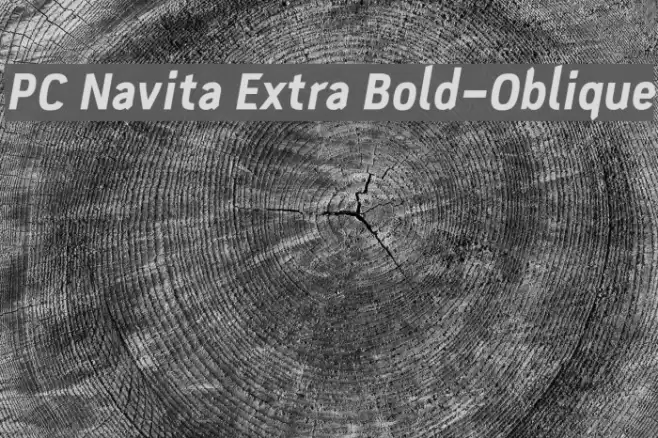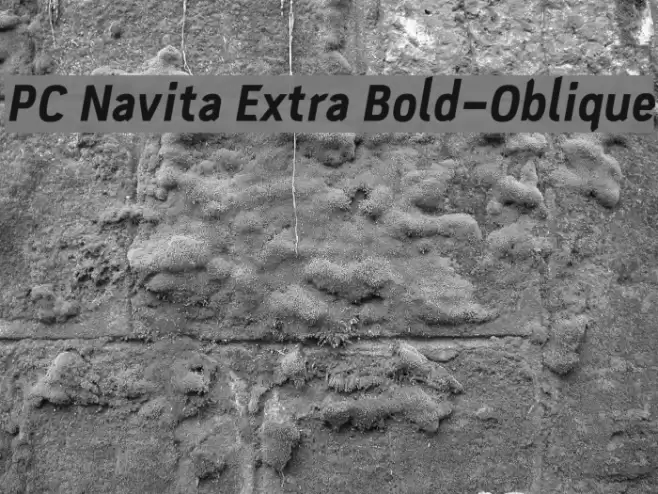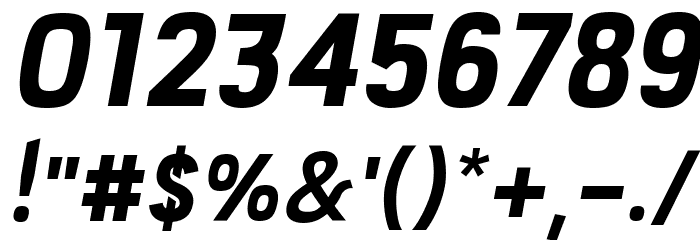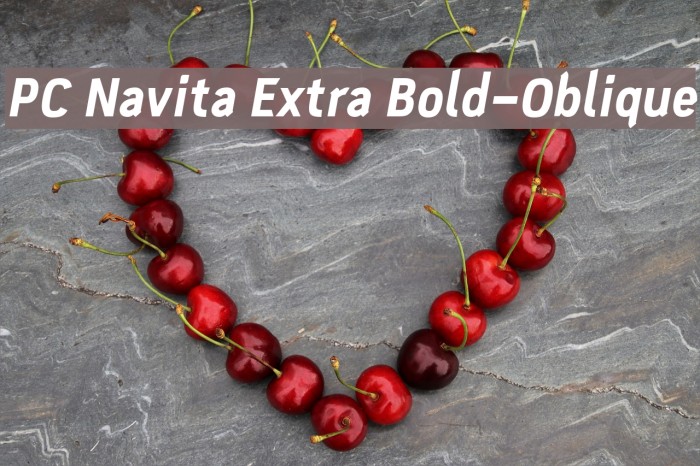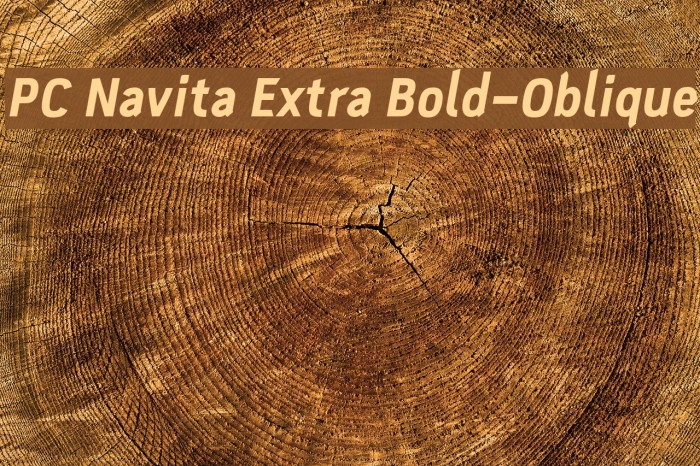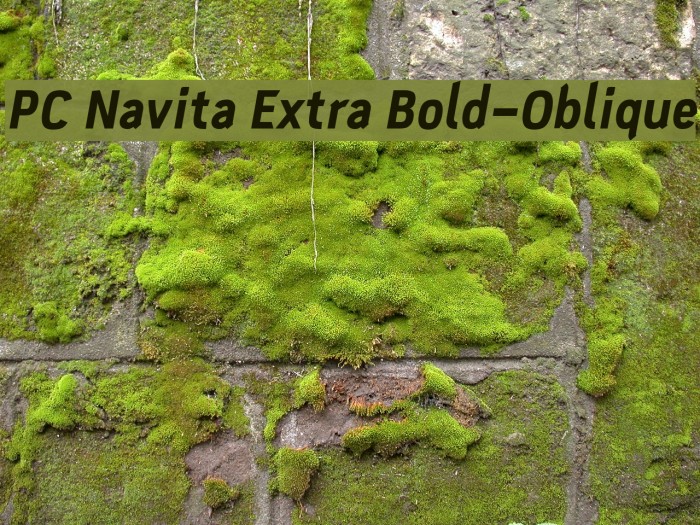
PC Navita Extra Bold-Oblique Font
PC Navita Extra Bold-Oblique Description
This font exhibits a bold and dynamic presence with its extra-bold weight and oblique style. The characters are slightly slanted, adding a sense of motion and energy. The strokes are thick and consistent, providing a strong visual impact. The uppercase and lowercase letters maintain a uniform appearance, while the numerals and special characters are designed to complement the overall style. The font's modern and assertive look makes it suitable for attention-grabbing headlines and impactful designs.
A bold, oblique font with a modern and dynamic style from Uncategorized fonts.
- Proposed Projects: Ideal for branding, advertising, posters, and headlines that require a strong visual impact.